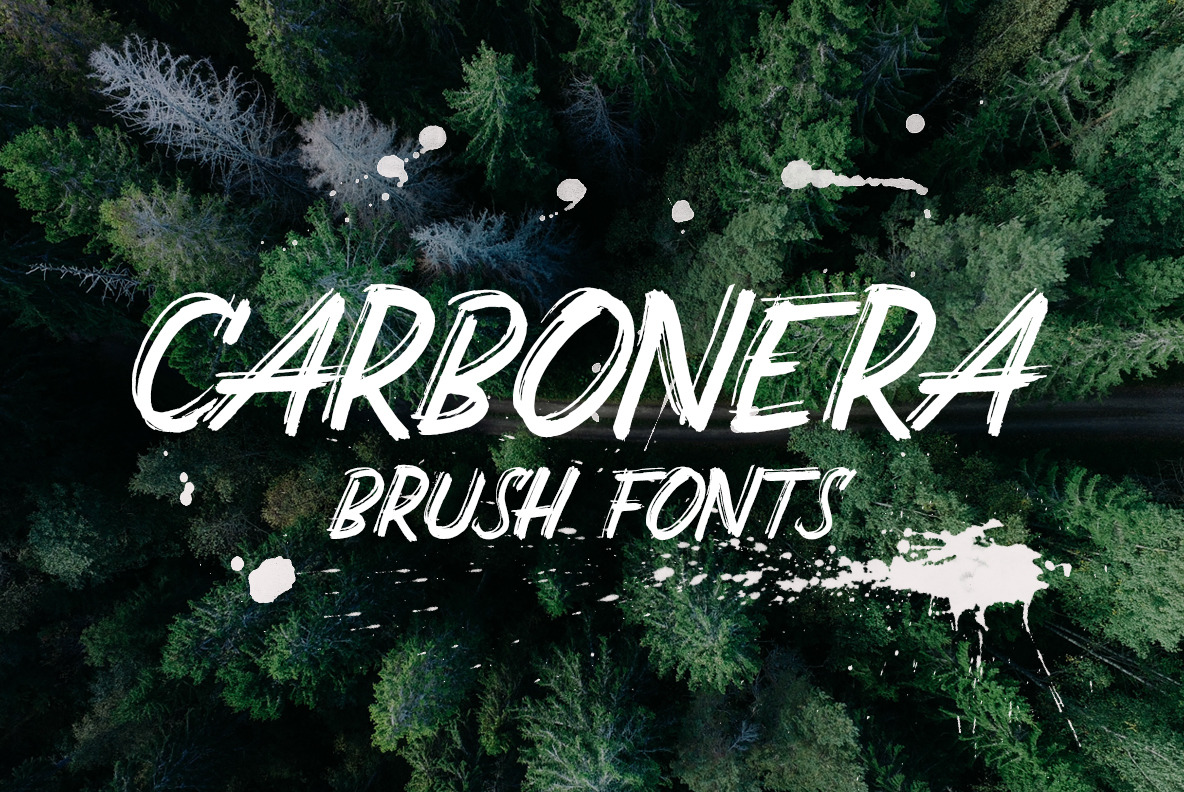
Carbonera Brush Fonts
Every brush font's have a unique character in the texture, as well as carbonera. The texture looks so natural, just need one shot in every line.
I've been trying create a lettering brush fonts with many equipment that I have. but for me this one is more special than the other, I've experiment with something unique. That is brush with filter cigarettes, I've found some unique texture with this tools. So, I initiative create this for the new fonts.
Create your beautiful artwork with this fonts to create natural feeling in your product. such as accessories, restaurant menu, sports equipment, t-shirt design, poster, banner, logos, etc.